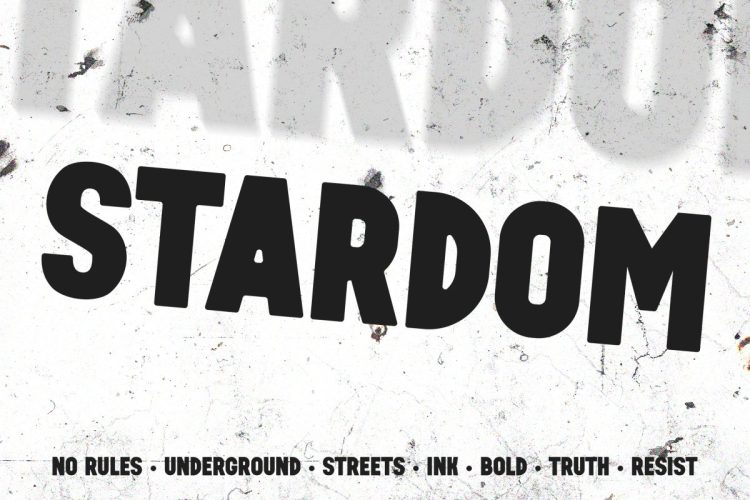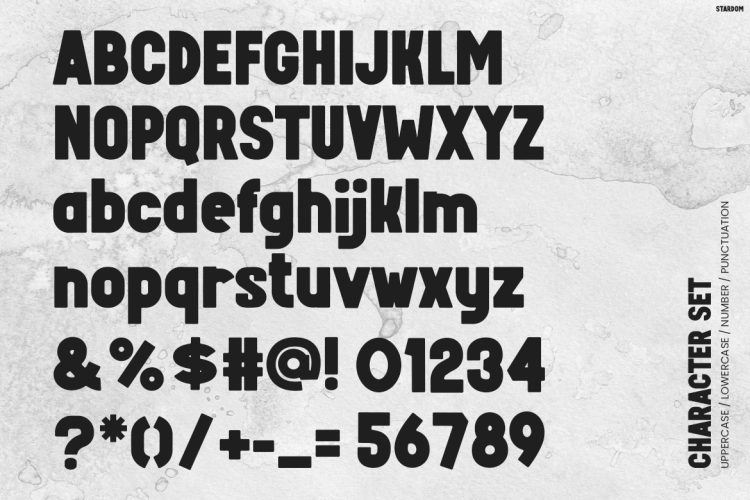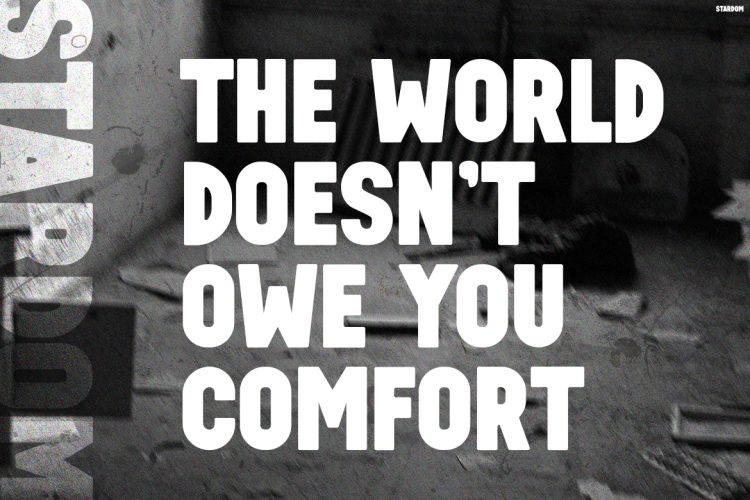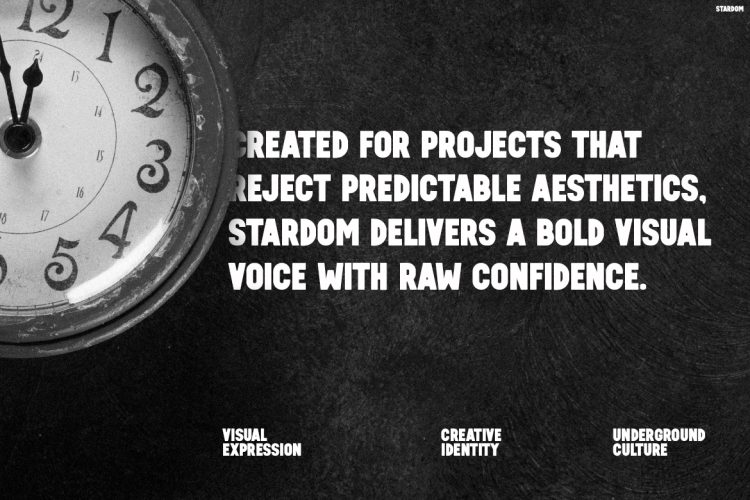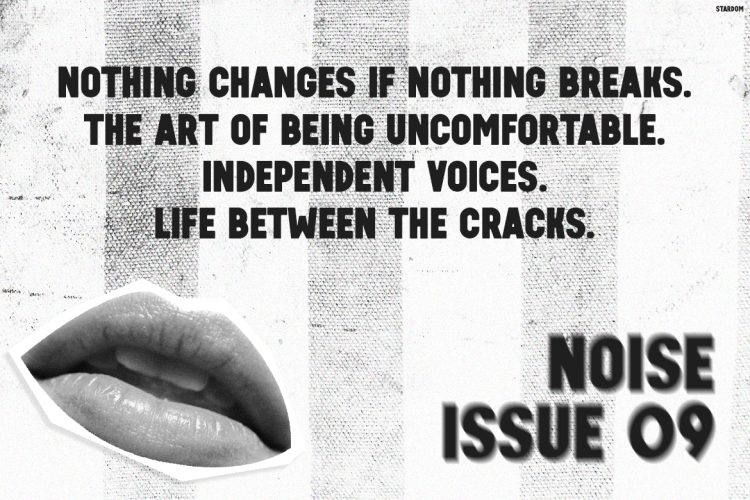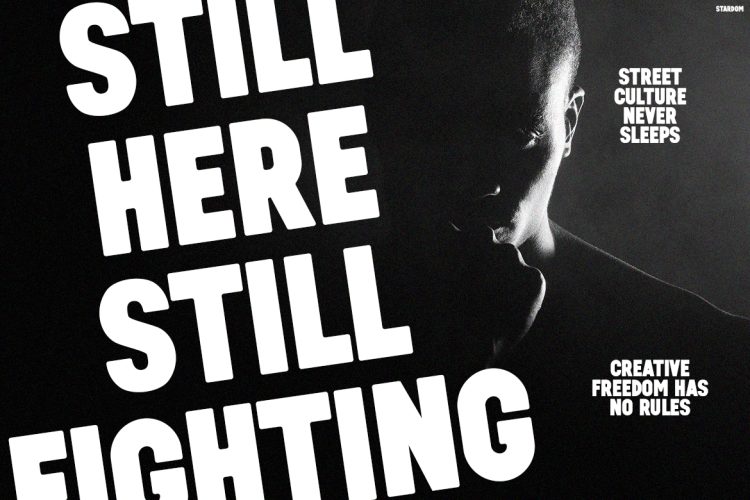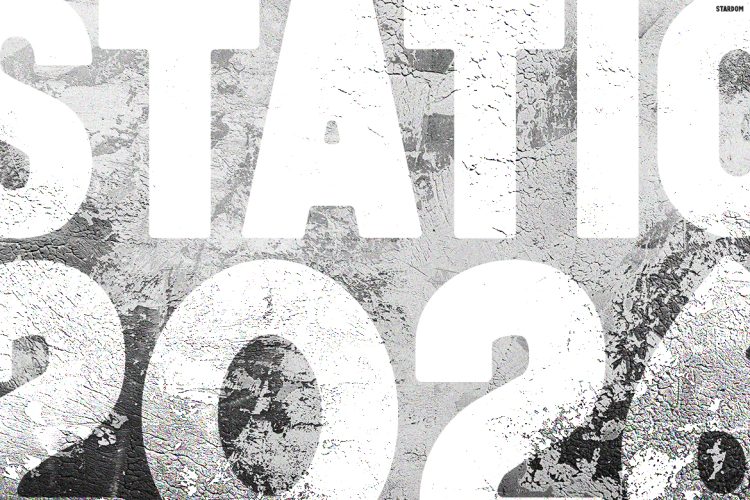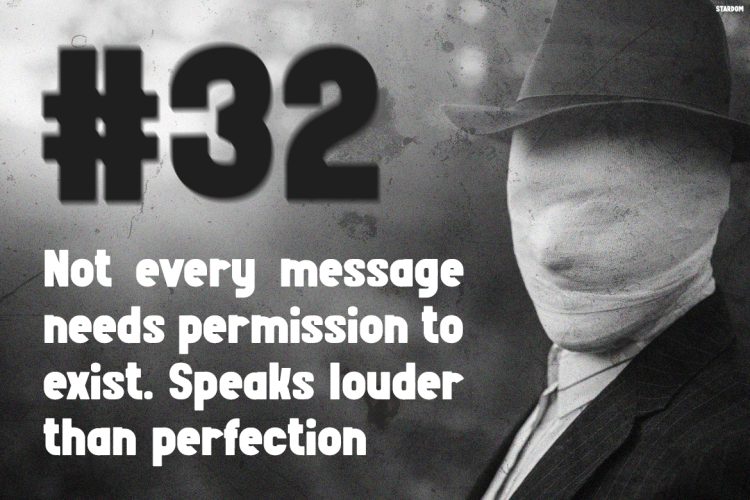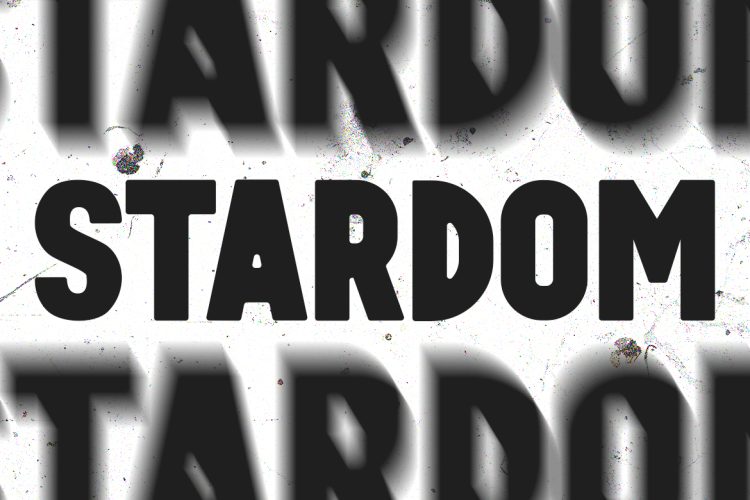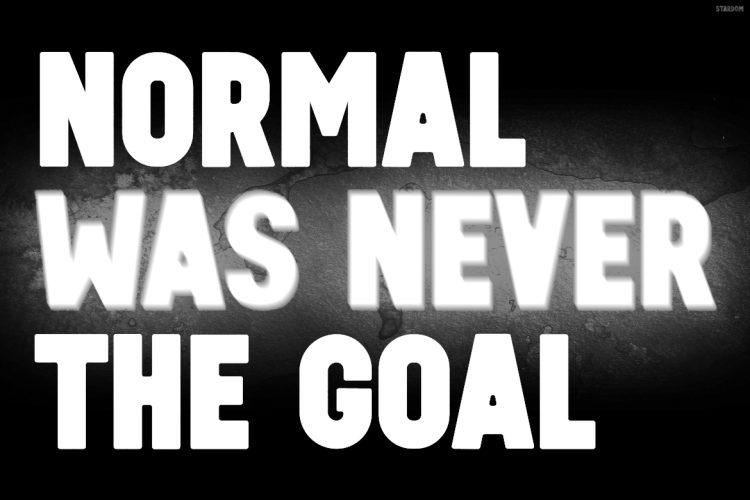
Instagram Font STARDOM โ Raw Urban Typography for Streetwear, Posters & Creative Branding
Instagram Font STARDOM is a bold display font that fuses raw street aesthetics with modern graphic impact. From the very first glance, its heavy letterforms and distressed texture create an unapologetic visual presence. Moreover, the rugged details deliver an authentic underground vibe that instantly grabs attention. As a result, every headline feels louder, stronger, and impossible to ignore. At the same time, the bold construction keeps every word highly readable across both digital and print media. Furthermore, STARDOM adds rebellious energy to every design, making it the perfect choice for brands that refuse to blend in.
Why You’ll Love It
Instagram Font STARDOM is designed for creators who want fearless typography with maximum impact. Not only does it strengthen bold headlines, but it also builds a memorable visual identity for modern brands. In addition, its gritty style works perfectly for streetwear collections, music promotions, editorial layouts, posters, album covers, social media graphics, YouTube thumbnails, and urban branding. Likewise, the distressed details create an authentic handcrafted feel. Meanwhile, the versatile letterforms adapt effortlessly to both print and digital projects. Most importantly, STARDOM helps every message feel confident, expressive, and unforgettable.
Instagram Font STARDOM Perfect For
- Streetwear brands and fashion labels
- Music posters and album artwork
- Editorial magazines and zines
- Social media graphics and Instagram posts
- YouTube thumbnails and streaming content
- Event promotions and advertising campaigns
- Urban branding and creative agencies
- Bold logos and merchandise designs
Stand Out Without Limits
If you want your designs to command attention, Instagram Font STARDOM is the perfect choice. Furthermore, its bold urban style instantly boosts visual impact. At the same time, its rugged personality gives every project a unique identity. Consequently, your branding becomes more powerful, memorable, and authentic. Finally, choose STARDOM today and transform ordinary headlines into fearless statements that leave a lasting impression.